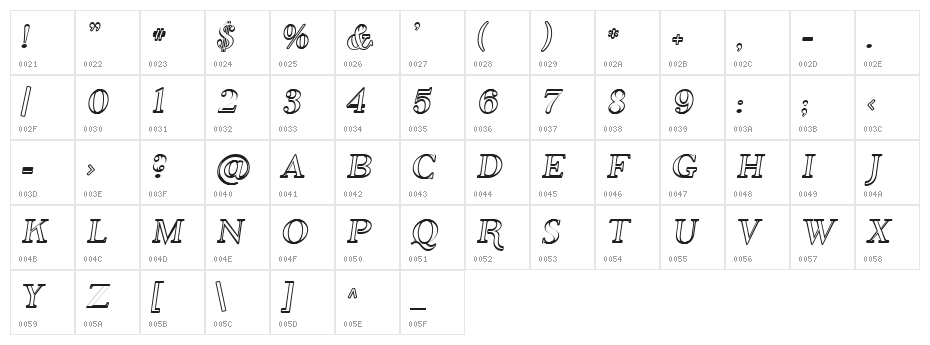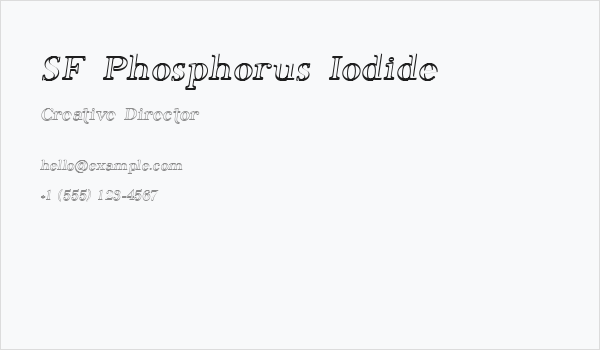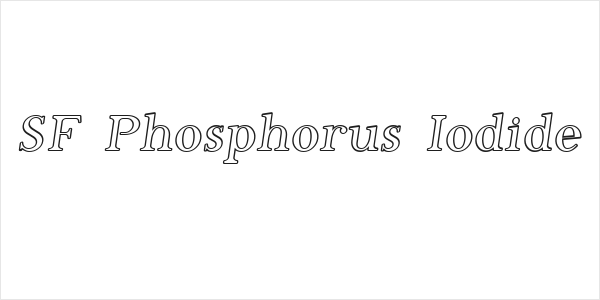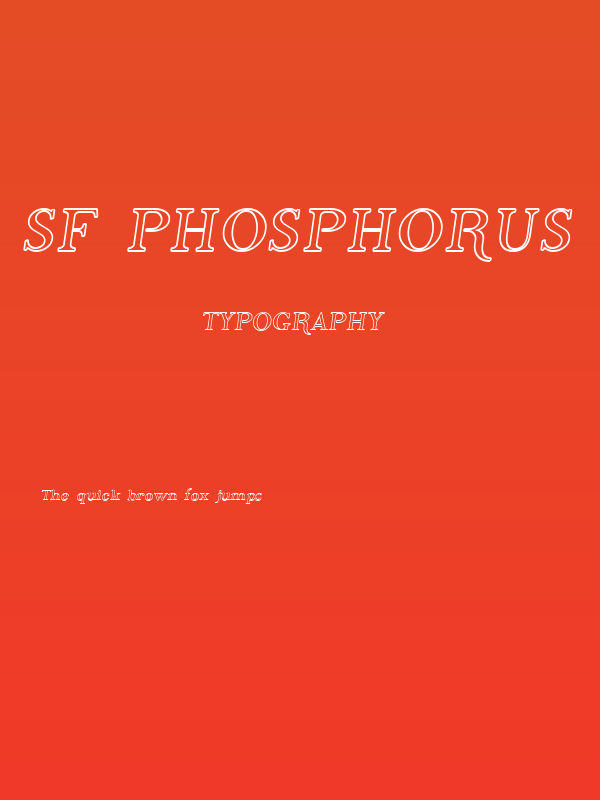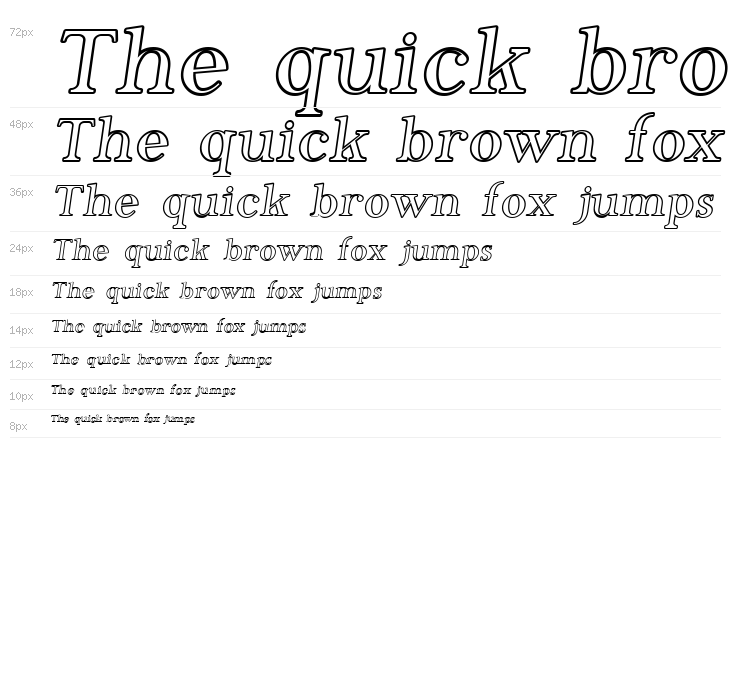
SF Phosphorus Iodide Font
SF Phosphorus Iodide Description
This font features a unique outline style that gives each character a hollow appearance, creating a distinct and eye-catching look. The uppercase and lowercase letters maintain a consistent design, with smooth curves and sharp angles that enhance readability. The numerals are bold and clear, making them stand out effectively. Special characters are well-integrated, maintaining the font's overall aesthetic. The font's outline nature makes it suitable for designs that require a modern and artistic touch, adding a layer of sophistication and creativity.
| Proposed Projects | Ideal for creative projects such as posters, logos, and headlines where a modern and artistic flair is desired. |